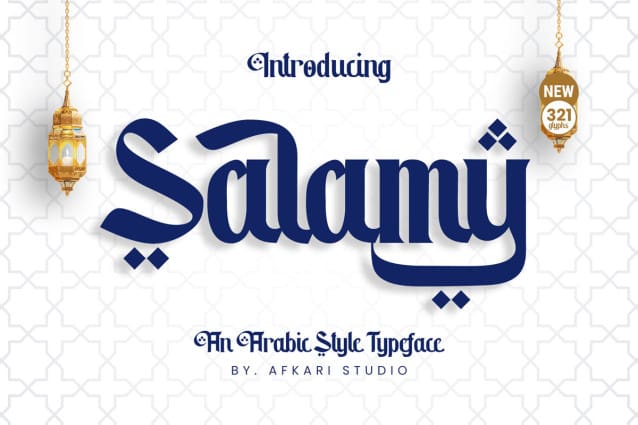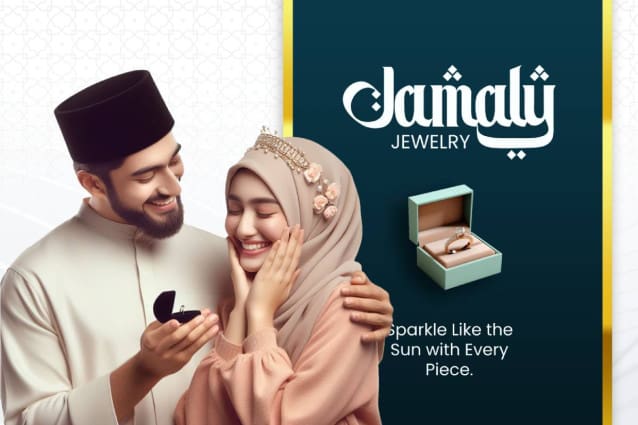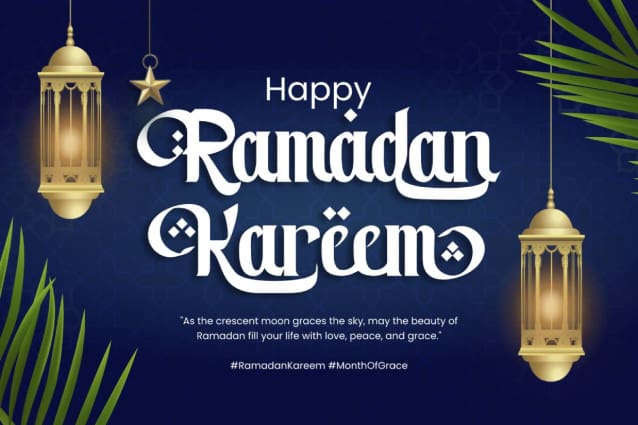
Salamy Arabic Font
Salamy Arabic Font, a captivating typeface that embodies the timeless beauty of Arabic calligraphy, now reimagined for modern design projects. Dive into the graceful curves and intricate details of Salamy, meticulously crafted to infuse every text with the essence of Arabic elegance. This exquisite font isn’t just a typographic choice; it’s a design voyage that seamlessly blends tradition and contemporary style to elevate your creative endeavors.
Salamy boasts a harmonious fusion of Arabic and Latin characters, ensuring global accessibility and allowing your message to transcend linguistic boundaries effortlessly. Whether you’re crafting branding materials, product packaging, quotes, posters, logotypes, apparel designs, or any project that craves a touch of Arabic sophistication, Salamy stands as the perfect companion.
Salamy – An Arabic Style Typeface